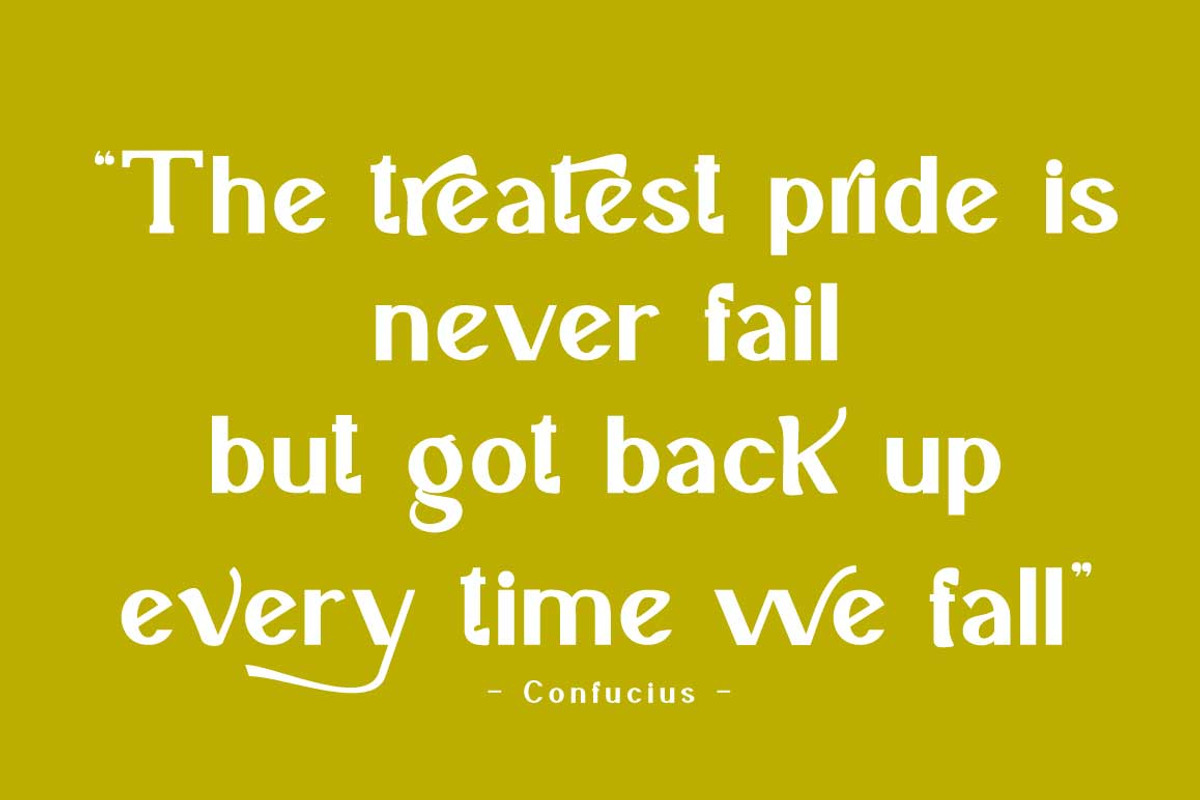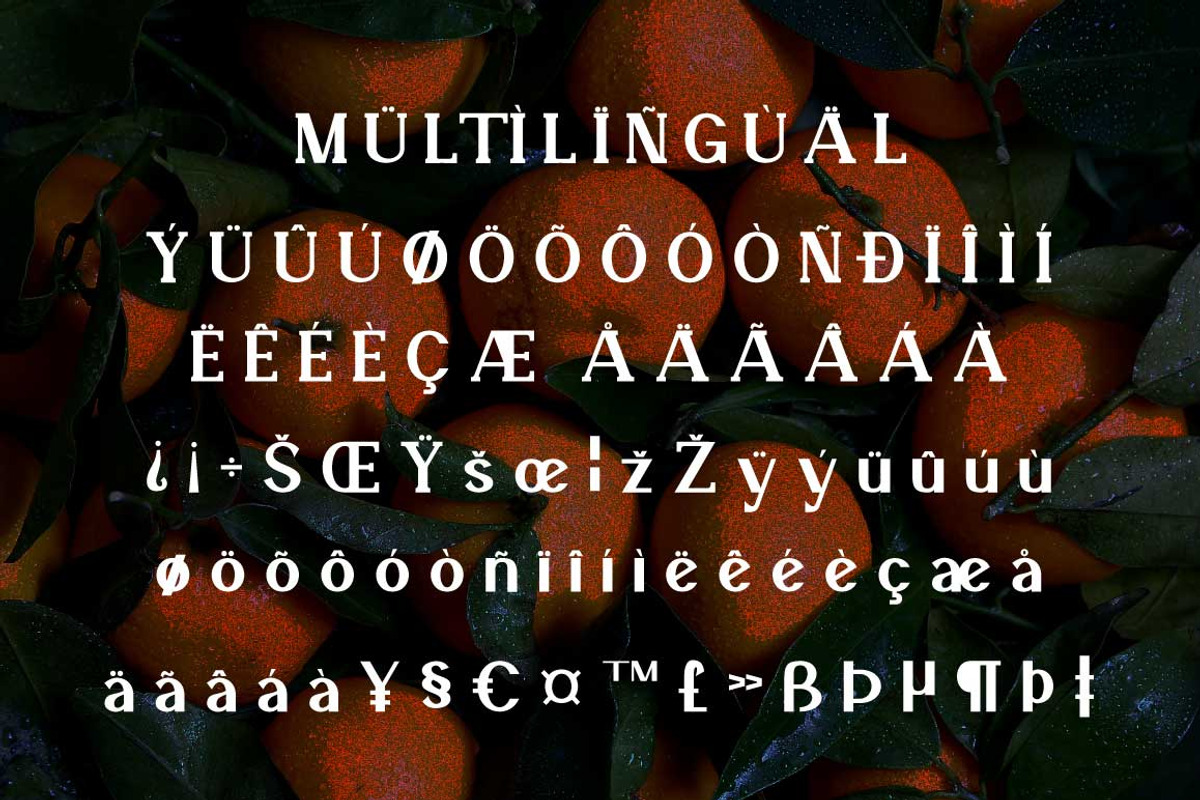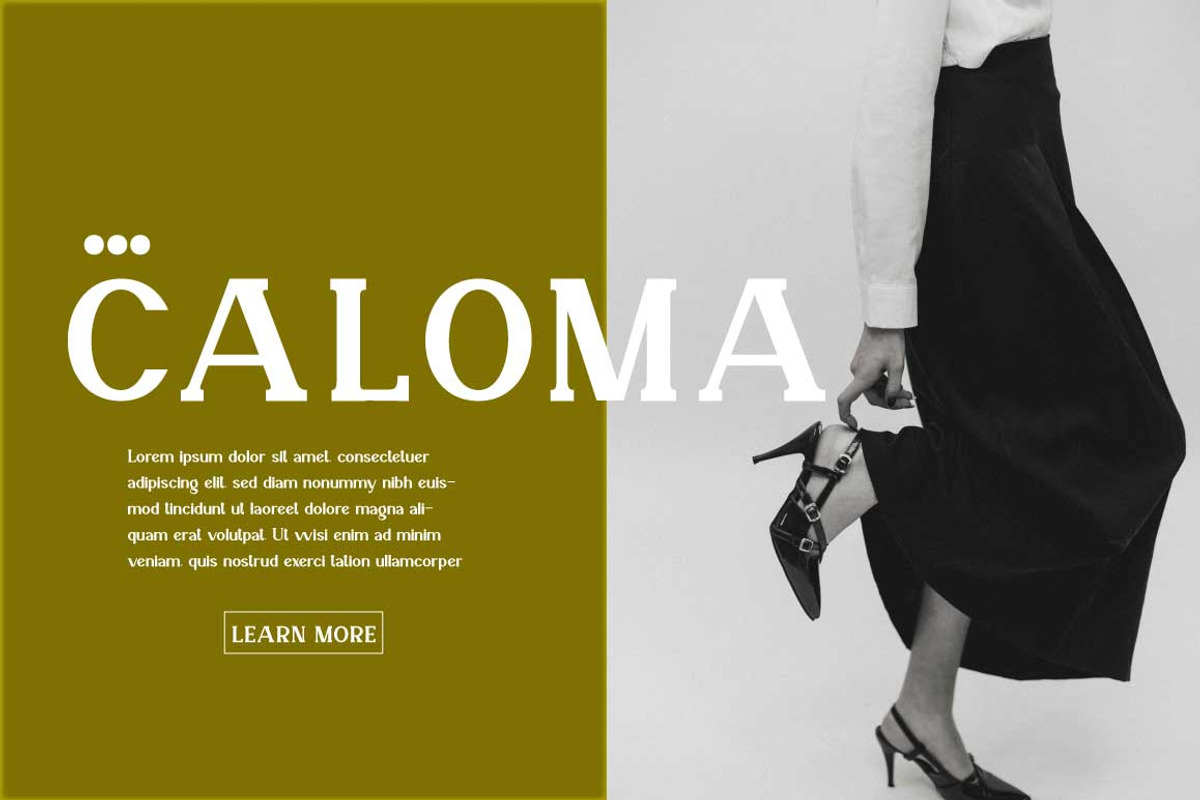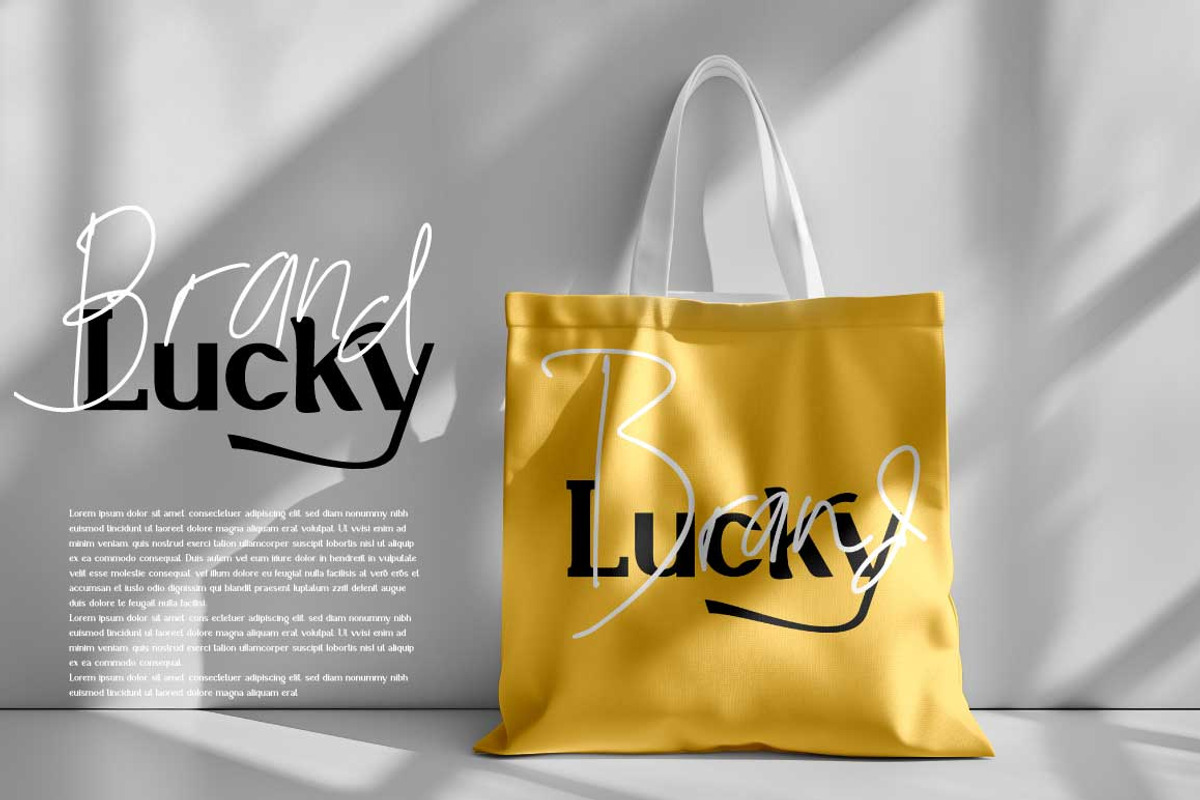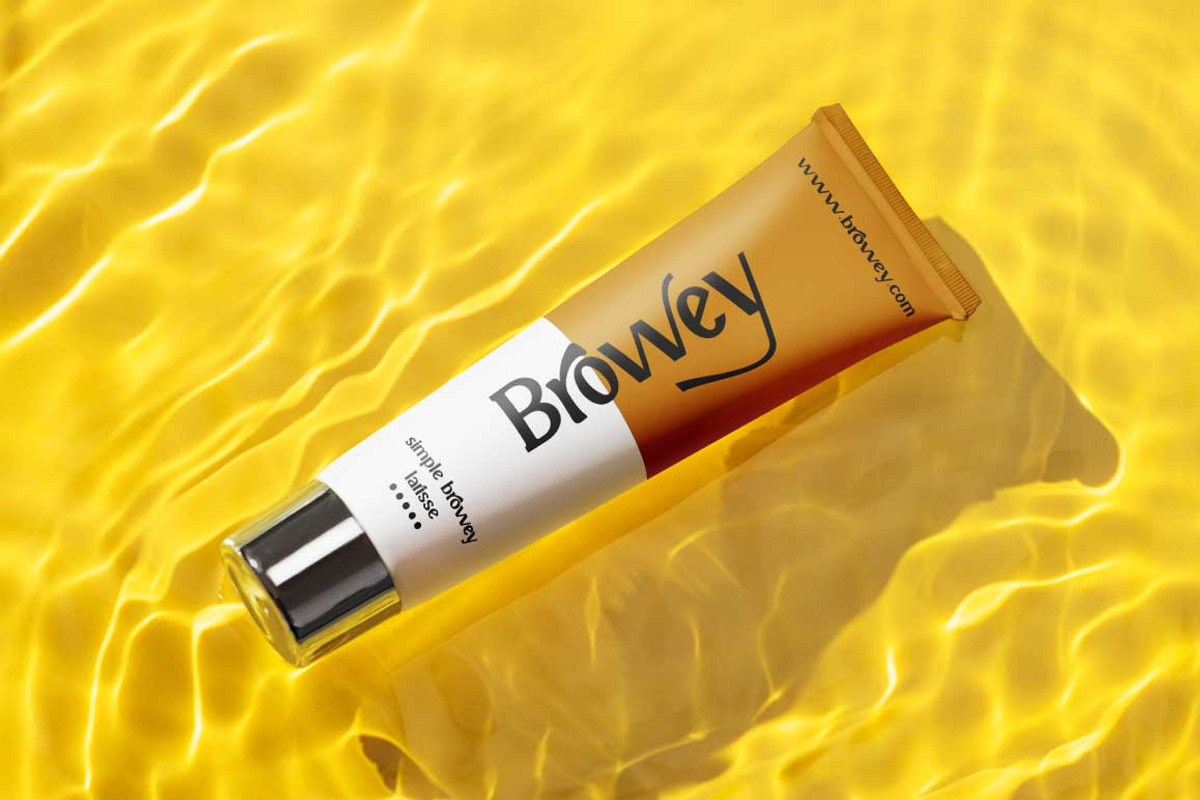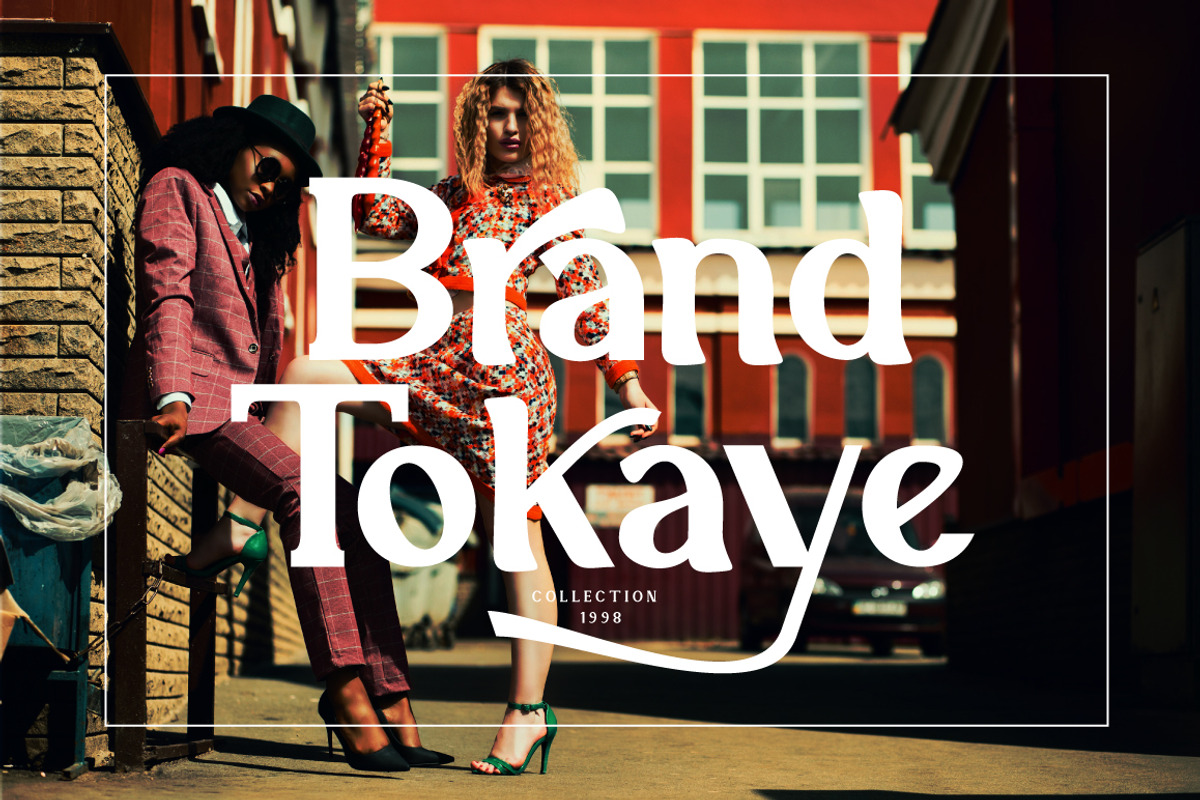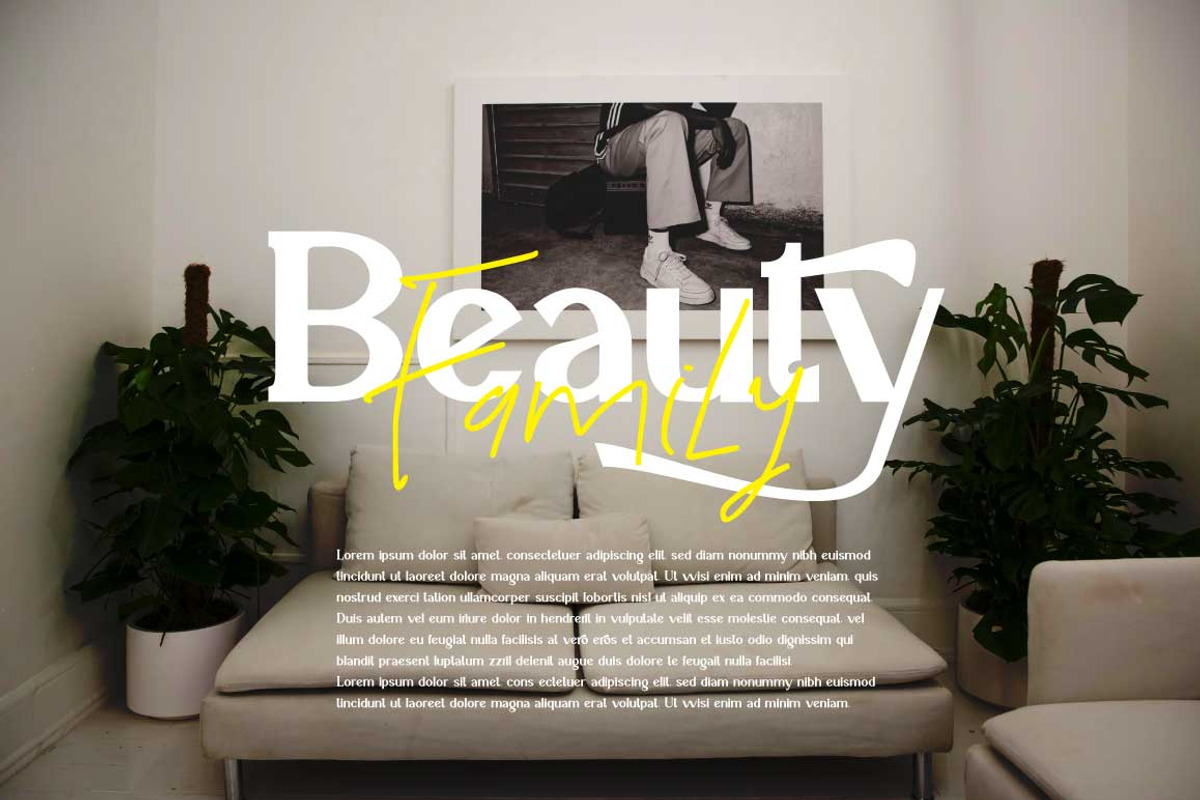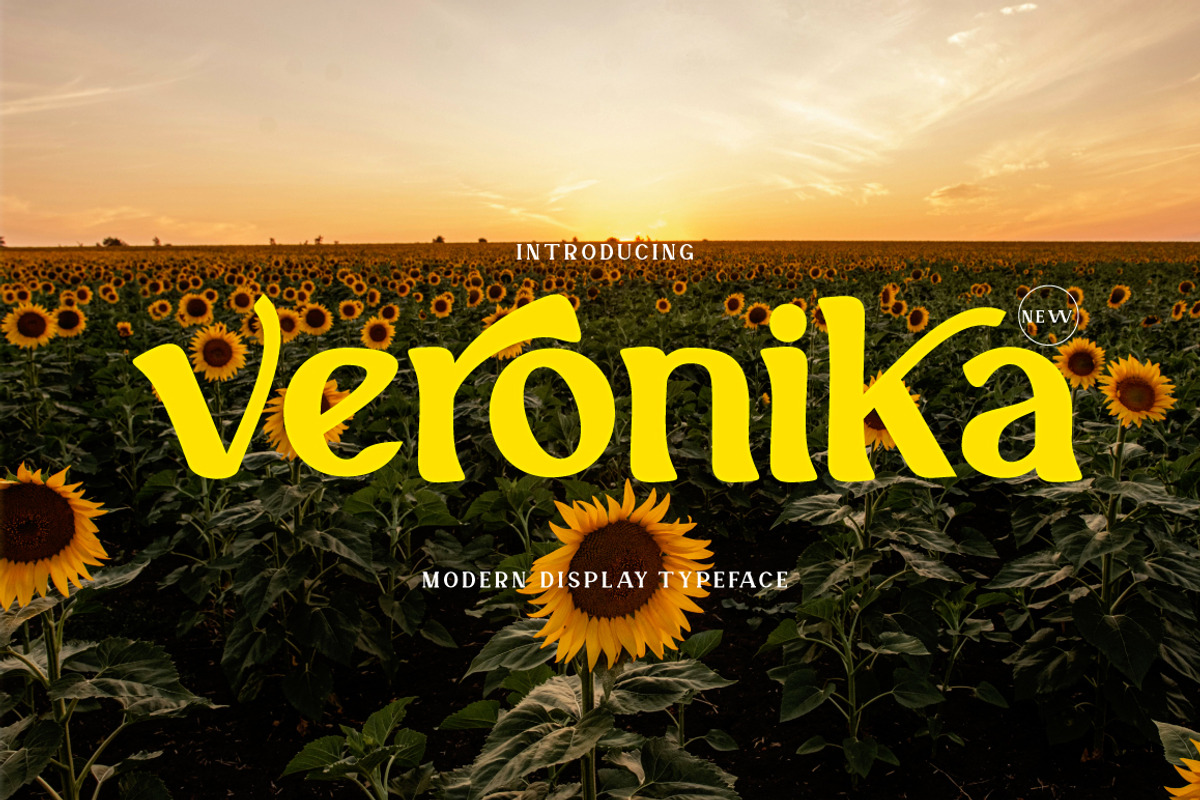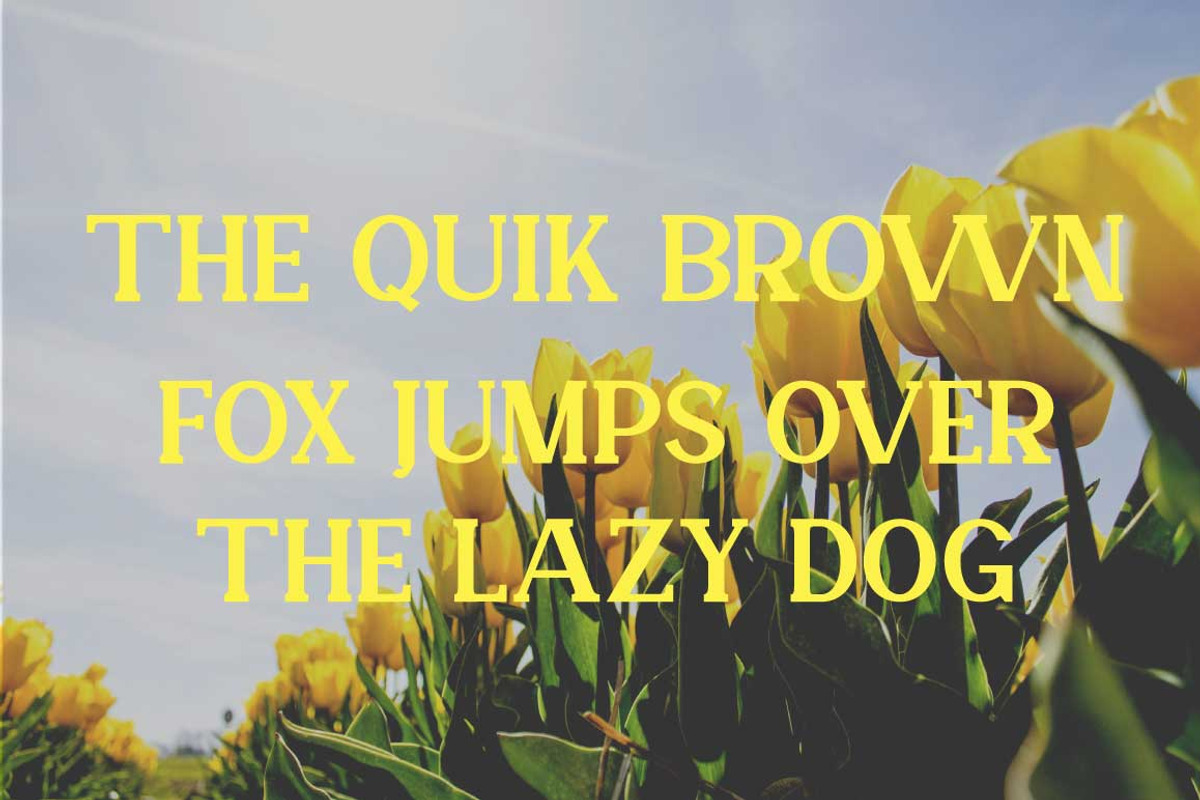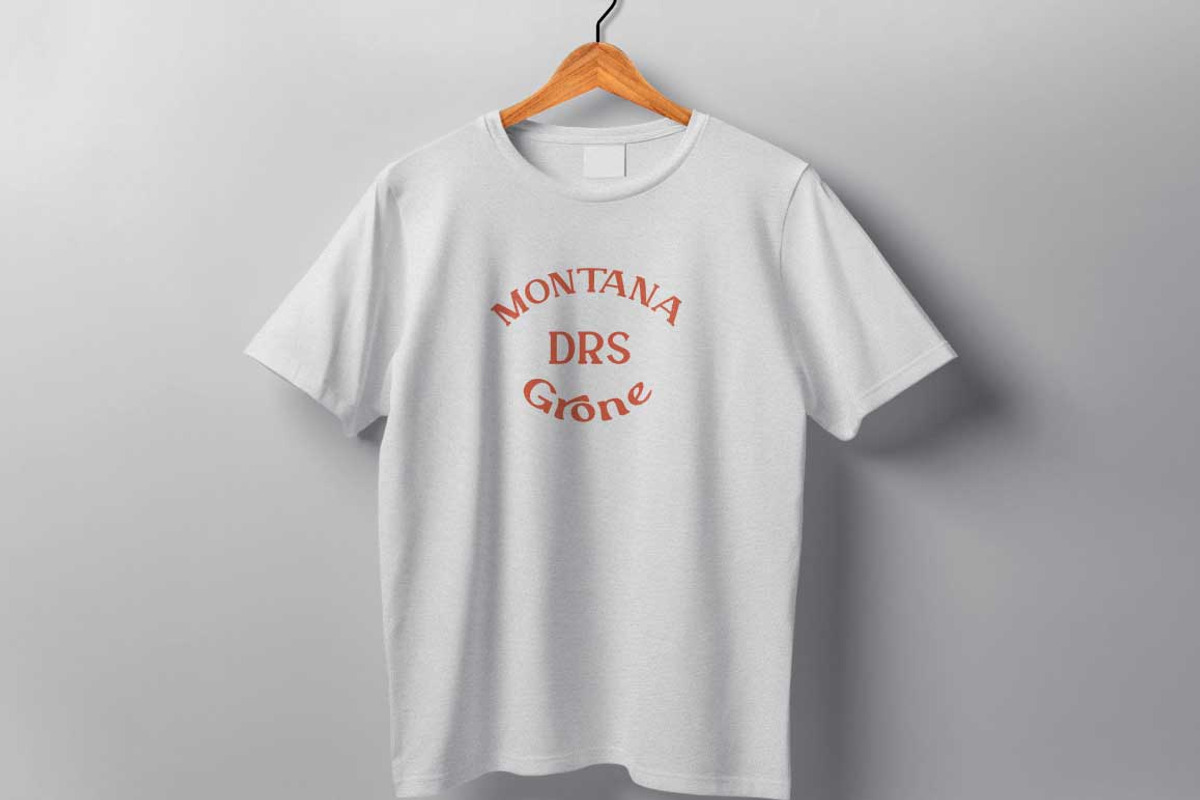
Veronika Display Font
I'm present to you, new retro typeface called Veronika !
Veronika is a stylish font that is both retro and bold font. It's thick curves give a 70s groovy vibe with the serifs bringing it slightly back to traditional
Veronika fits perfectly into those nostalgic moodboards and vintage logos. It come with a unique lower and uppercase plus numbers, punctuation & multilingual letters.